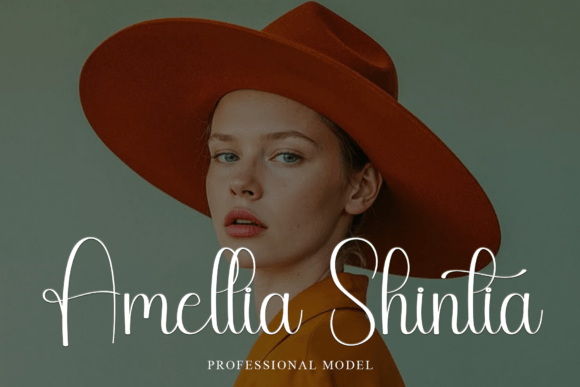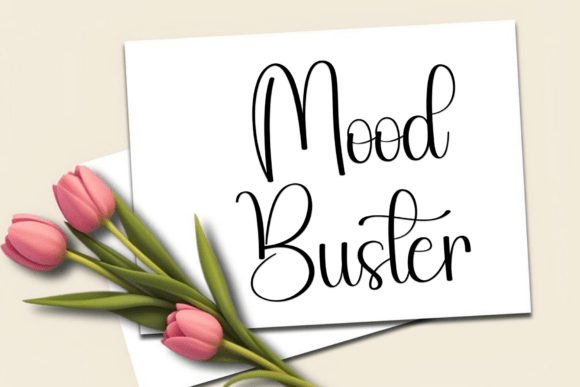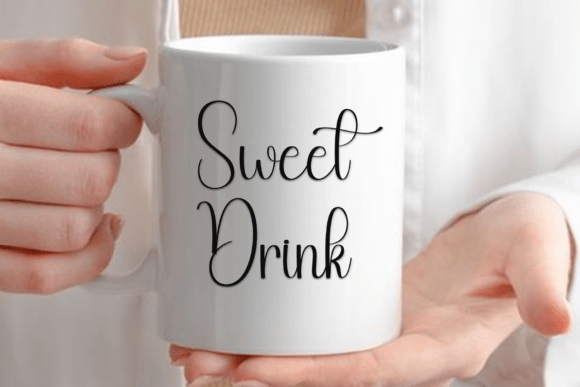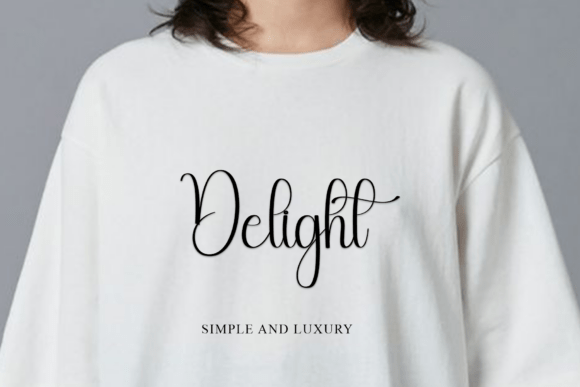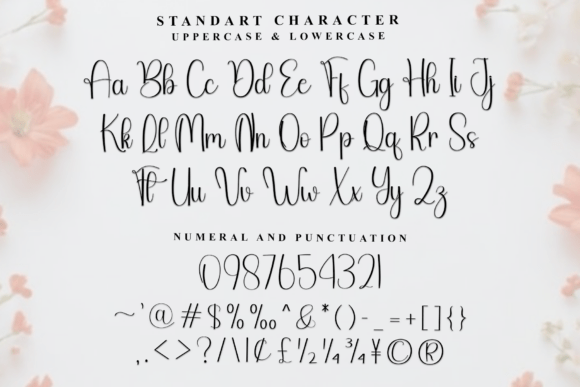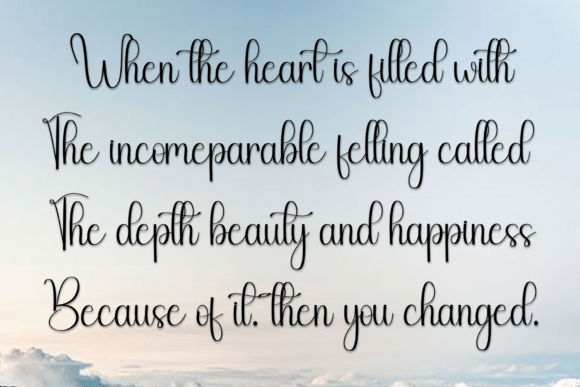
Introducing Boho Floral Font: The Perfect Addition to Your Design Arsenal
Are you a designer, crafter, or DIY enthusiast looking for a font that exudes warmth, friendliness, and a touch of playfulness? Look no further than Boho Floral Font! This casual and creative font is designed to add a unique and fun touch to any design project, from personal invitations to social media graphics.
The Boho Floral Font Difference
Boho Floral Font stands out from the crowd with its round, playful strokes that create a relaxed and approachable feel. This charming, hand-drawn aesthetic is perfect for those who want to add a personal touch to their designs. The font’s warmth and friendliness make it an excellent choice for projects that require a more laid-back and informal vibe.
Perfect for Personal Projects and More
Boho Floral Font is ideal for a wide range of personal projects, including:
- Invitations: Whether it’s a birthday party, wedding, or baby shower, Boho Floral Font is the perfect choice for creating beautiful and unique invitations.
- Social Media Graphics: Add a touch of personality to your social media posts with Boho Floral Font. It’s perfect for creating eye-catching graphics, quotes, and more.
- DIY Crafts: If you’re a crafter or DIY enthusiast, Boho Floral Font is a great addition to your design arsenal. Use it to create handmade cards, gift tags, and other paper crafts.
PUA (Private Use Area) Encoded glyphs are a set of characters that are not part of the standard Unicode character set. This encoding allows font designers to include additional characters, such as ligatures, ornaments, and swashes, that can be used to enhance the font’s appearance. In the case of Boho Floral Font, the PUA Encoded glyphs provide a range of alternative characters that can be used to add more variety and creativity to your designs.
Tips for Using Boho Floral Font
Here are a few tips for getting the most out of Boho Floral Font:
- Experiment with different font sizes and colors to create a unique look.
- Use Boho Floral Font in combination with other fonts to create a contrasting look.
- Add graphics and illustrations to enhance the font’s playful aesthetic.
Boho Floral Font is a versatile and charming font that is perfect for designers, crafters, and DIY enthusiasts. Its casual and creative aesthetic makes it ideal for personal projects, invitations, and social media graphics. With its PUA Encoded glyphs and compatibility with a wide range of design applications, Boho Floral Font is a great addition to any design arsenal. So why wait? Download Boho Floral Font today and start adding a touch of warmth and friendliness to your designs!
- Casual and creative font
- Round, playful strokes
- Relaxed and approachable feel
- Charming, hand-drawn aesthetic
- Standard PUA Encoded glyphs